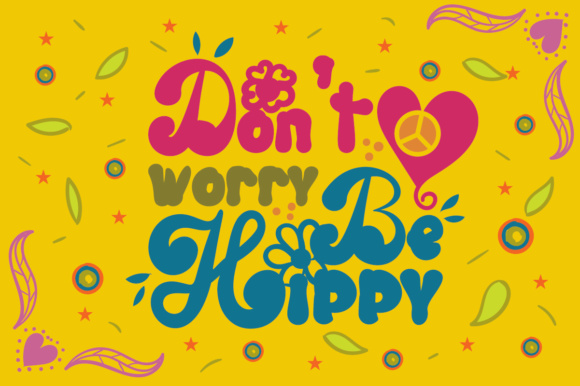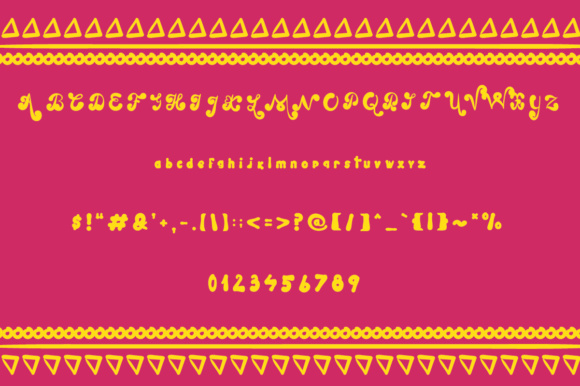
Introduction to Hippie Summer Font
Hippie Summer is a fun, happy font.
The bold, rounded letters give the font a summery 60’s vibe .
Key Features of Hippie Summer Font